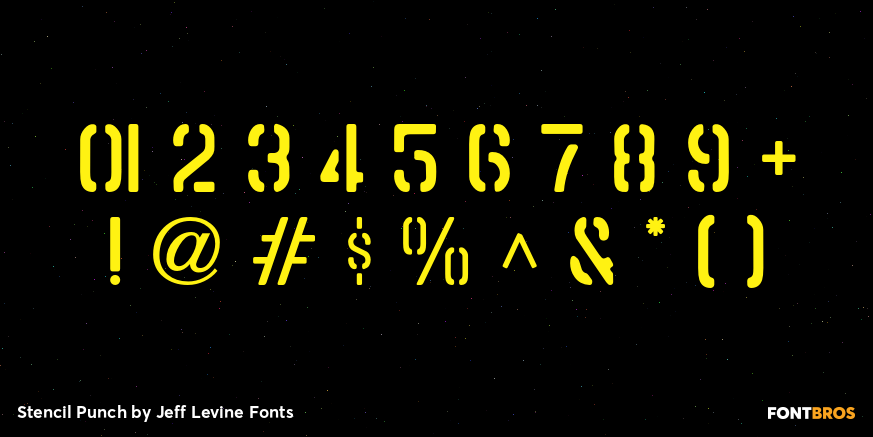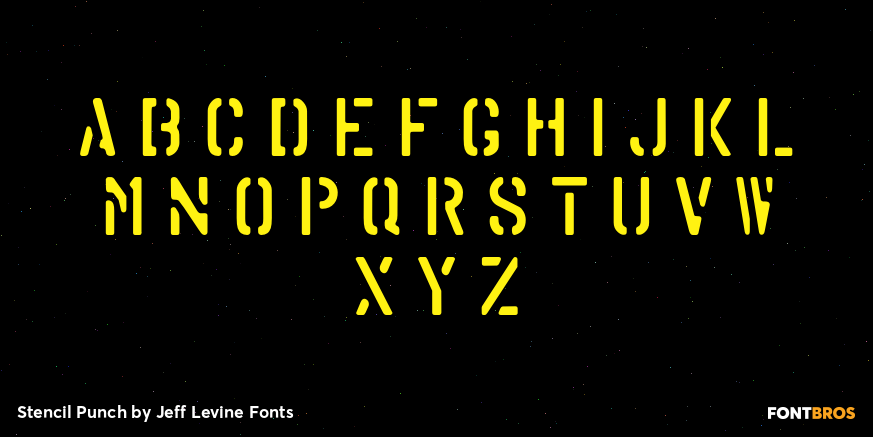
Stencil Punch
Stencil Punch JNL is modeled from lettering examples made by a Diagraph stencil cutting machine. Diagraph was the first company to make the stencil punch machines used in industry and by the military.
Stencil Punch JNL Regular by Jeff Levine Fonts